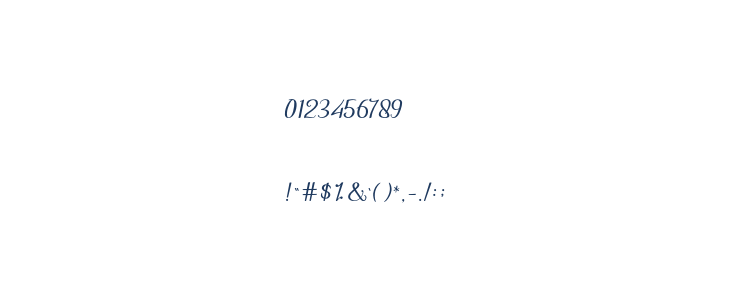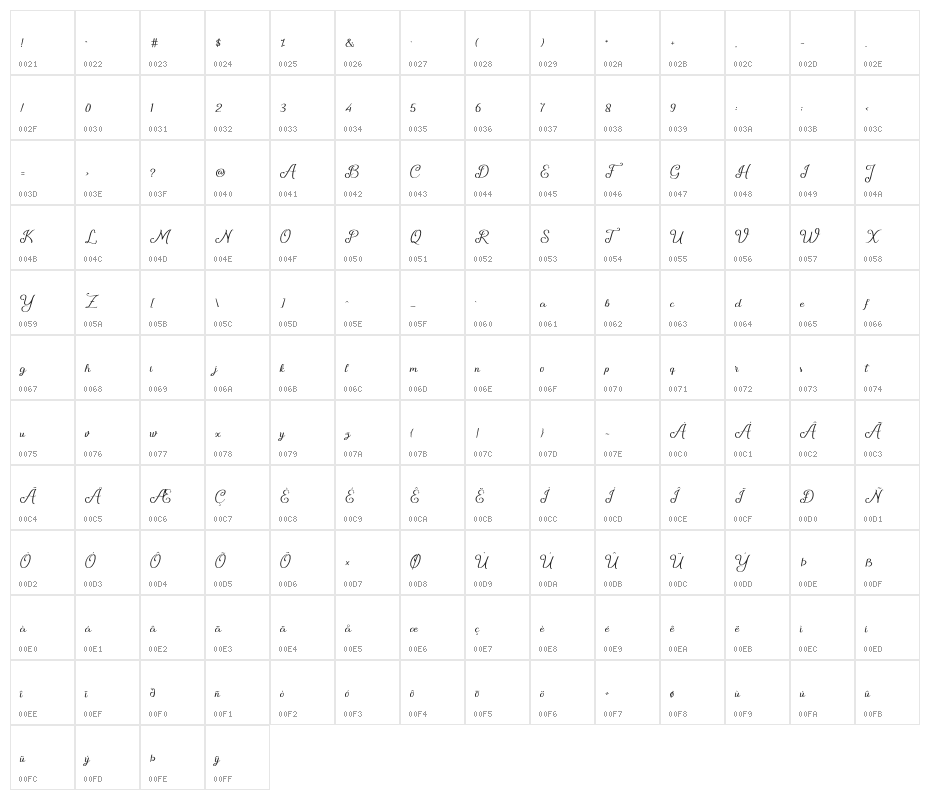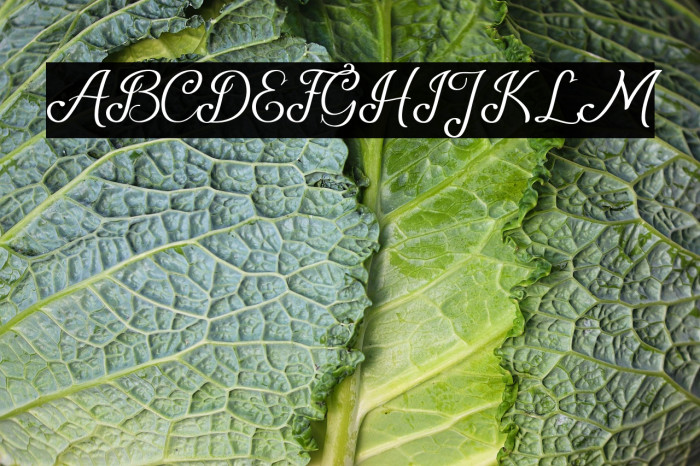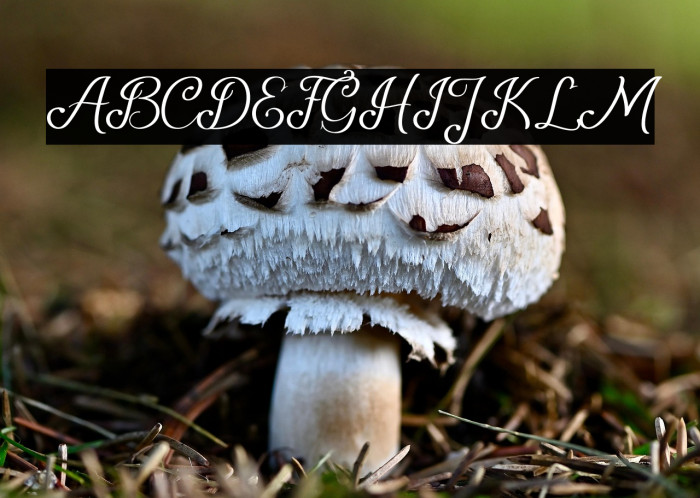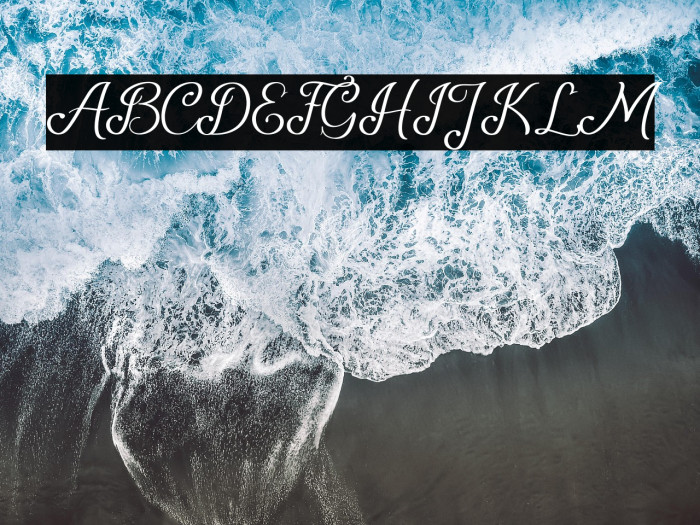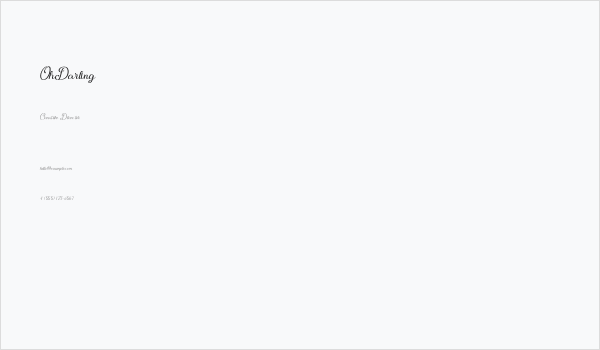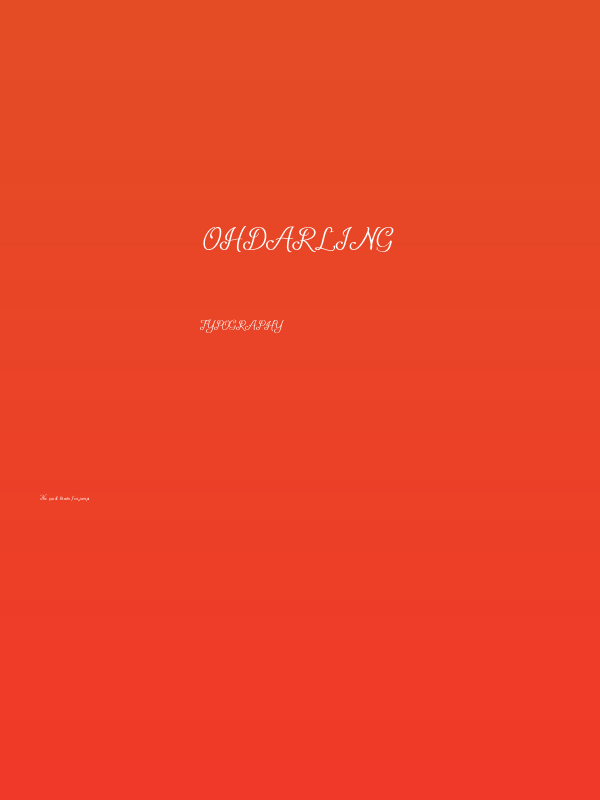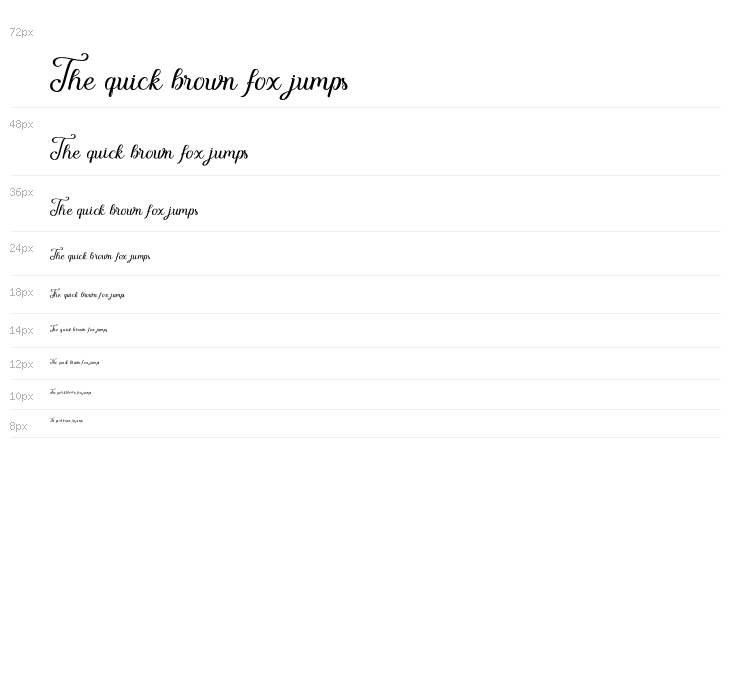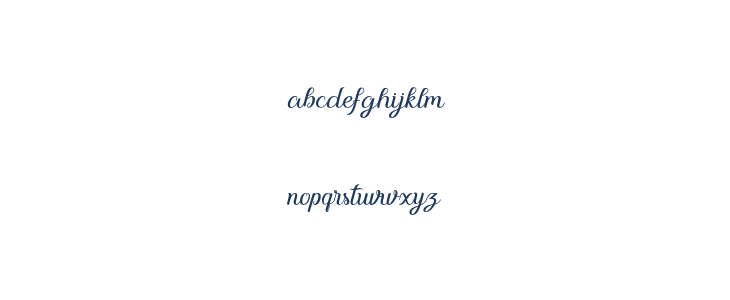
OhDarling Font
OhDarling Description
This elegant script font features beautifully flowing, cursive letters with a classic and sophisticated style. The uppercase letters are ornate, with graceful loops and swirls that add a touch of refinement. The lowercase letters maintain a consistent flow, complementing the uppercase with their smooth, connected strokes. Numbers and special characters are designed to match the overall aesthetic, ensuring a cohesive look across all text. This font is perfect for projects that require a touch of elegance and sophistication, such as wedding invitations, branding, and high-end product packaging. Its timeless appeal makes it suitable for both modern and traditional designs.
| Overall Style | Classic |
| Use Case | Logos, Invitations, Branding |
| Proposed Projects | Wedding invitations, luxury branding, elegant product packaging, formal event programs. |